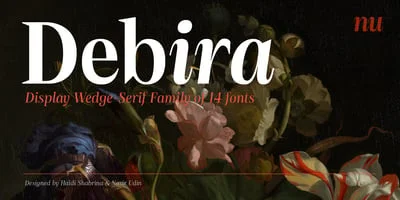
Debira Font
Debira Font is perfect for sophisticated fashion boutiques, elegant jewelry collections, luxury spa branding, refined beauty salons, upscale feminine lifestyle brands, graceful dance studios, premium cosmetics packaging, and chic contemporary design projects. This refined typeface brings modern femininity and sophisticated elegance to any design project celebrating contemporary women's style and sophisticated beauty standards.
What makes Debira Font exciting is its exquisite balance of contemporary sophistication with feminine grace that perfectly captures the essence of modern women's elegance and the refined beauty of contemporary feminine design aesthetics. The graceful letterforms feature sleek proportions and sophisticated styling that create an unmistakably elegant appearance. Each character radiates confident femininity, making it ideal for brands that represent modern women's empowerment, sophisticated beauty, and the contemporary redefinition of feminine elegance and style.
The Debira Font family typically includes multiple weights from light to bold with complete uppercase and lowercase letters, numbers, punctuation marks, and contemporary symbols. Many versions feature additional elegant decorative elements, modern feminine motifs, and sophisticated symbols that enhance the refined aesthetic and provide creative flexibility for luxury and contemporary design applications.
Whether you're developing sophisticated feminine brands or creating elegant contemporary materials, Debira Font offers unmatched modern sophistication and feminine authority. This elegant typography choice transforms ordinary text into sophisticated statements that resonate with contemporary women seeking refined style and elegant expression. The font's graceful construction ensures exceptional performance across luxury applications while maintaining its distinctive sophisticated character that makes every design project feel like a celebration of modern femininity where elegance meets confidence in perfect contemporary harmony where sophistication and style unite beautifully.